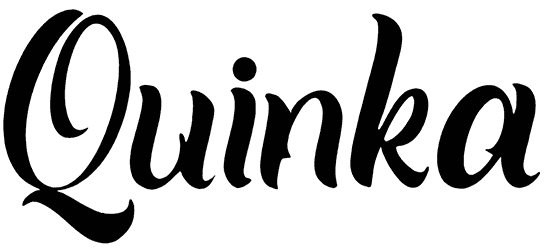
Quinka Font
For different designs, from retro to modern ones, you can use this script font with its soft face to give an elegant style to your words. The characters are natural and eye-catching, and you can use them for a Christmas postcard or any innovative design that you want. Give Quinka font a chance and test it for your next layout to see the final draft.